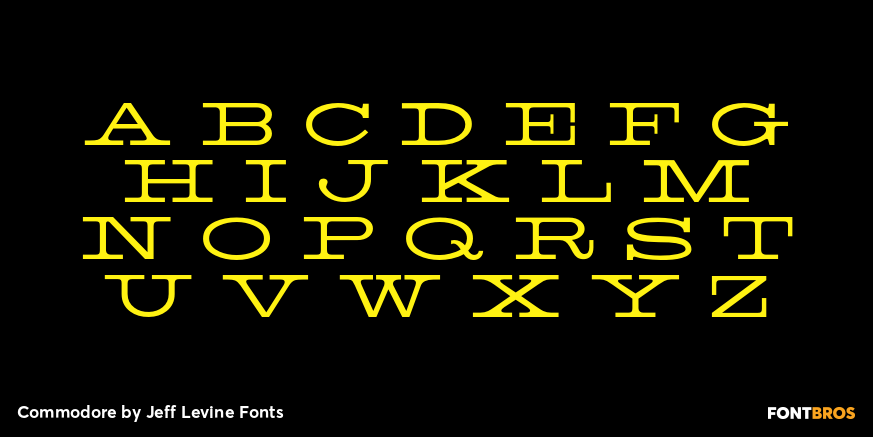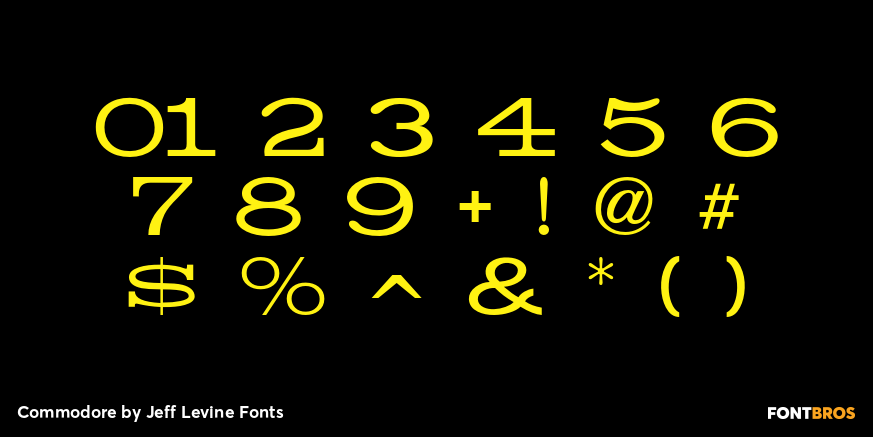
Commodore
Commodore JNL and Commodore Oblique JNL are based somewhat on the Clarendon family of typefaces that were popular in the 1800s and used on many of the broadsides and notices printed with wood type.
The extra-wide design of this font limits the amount of text that a headline can handle effectively, but when applied sparingly it commands attention and sells the message.
Commodore JNL Oblique
Commodore JNL Regular
Commodore by Jeff Levine Fonts